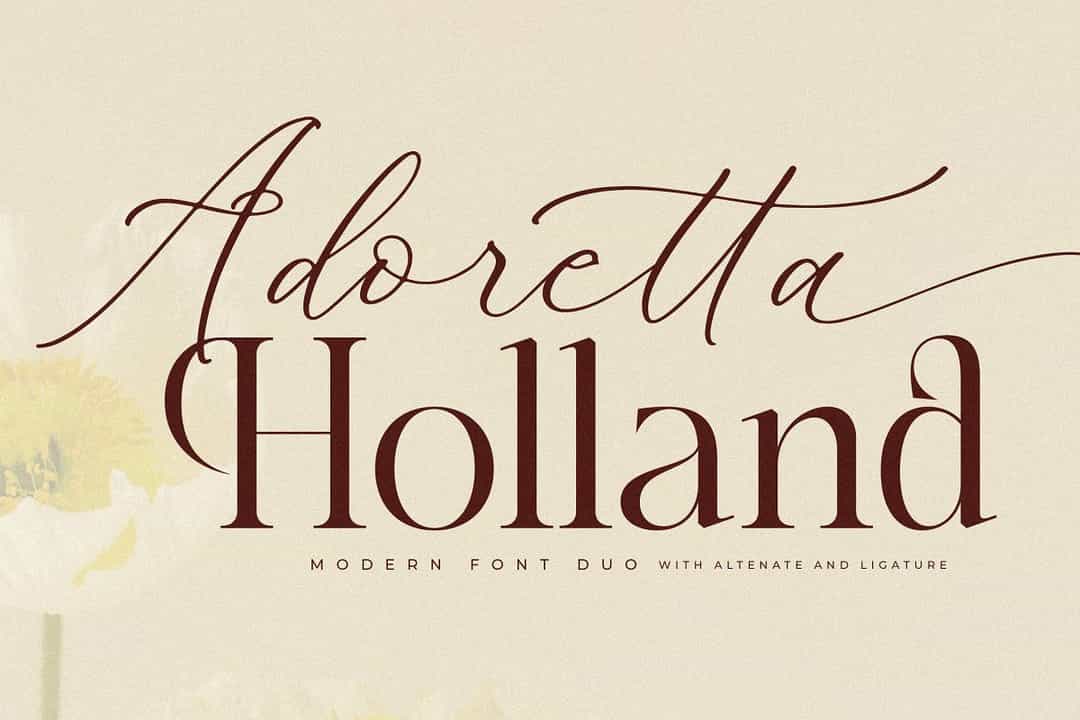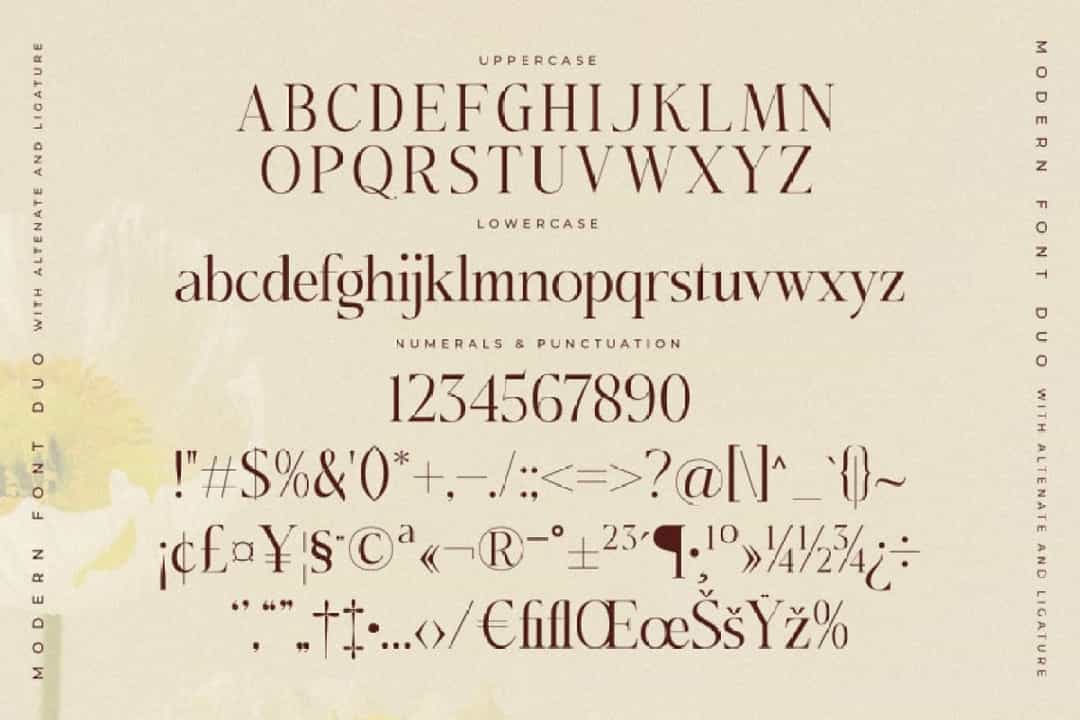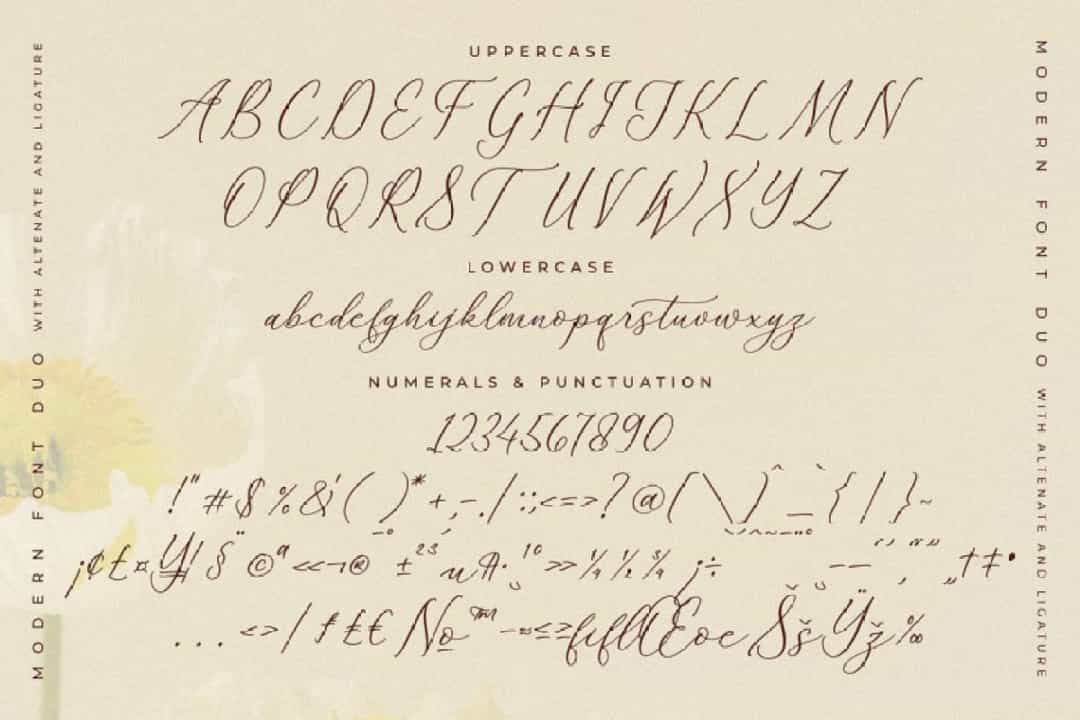
Adoretta Holland It is an elegant and contemporary font pair, which combines the timeless serif font with an eye-catching script font to achieve the ideal blend of timeless elegance. While serif font offers timeless classicism, script font adds dynamic energy and fluidity. Adoretta Holland’s versatility makes her an essential tool for designers seeking a mix of classic and modern designs.